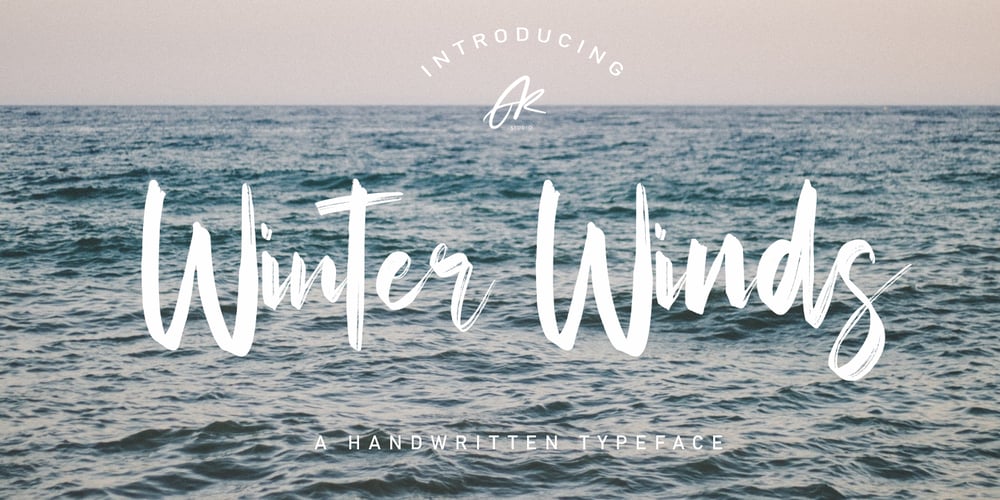
Winter Winds Font Family was designed by Asep Rendi and published by Arendxstudio. Winter Winds contains 2 styles and family package options. Winter Winds Handwritten Typeface is a font with distinctive handwritten characters, perfect for branding projects, logos, wedding designs, media posts, advertisements, product packaging, product designs, labels, photography, watermarks, invitations, stationery, and any project who need handwritten feel. Features : • Character Set A-Z • Numerals & Punctuations (OpenType Standard) • Accents (Multilingual characters) • Ligature • Alternate There it is! I really hope you enjoy it – comments and likes are always welcome and accepted. More importantly, don’t hesitate to send a message if you have a problem or question. Now just read this, go there and make it happen.